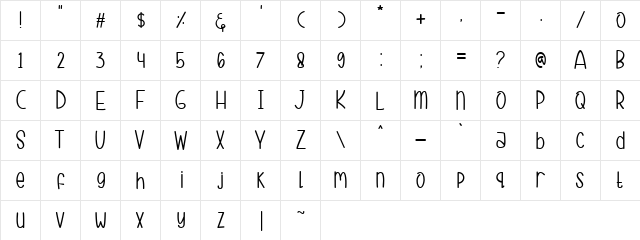
Aysha Regular
Design Context for Aysha Typeface
Aysha offers clean, dependable letterforms without strong stylistic allegiance, making it a practical choice for designers who need flexibility.